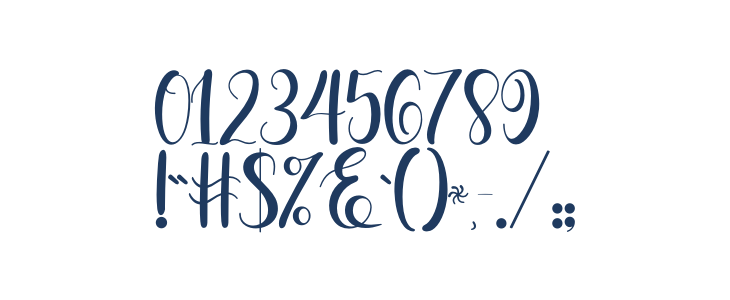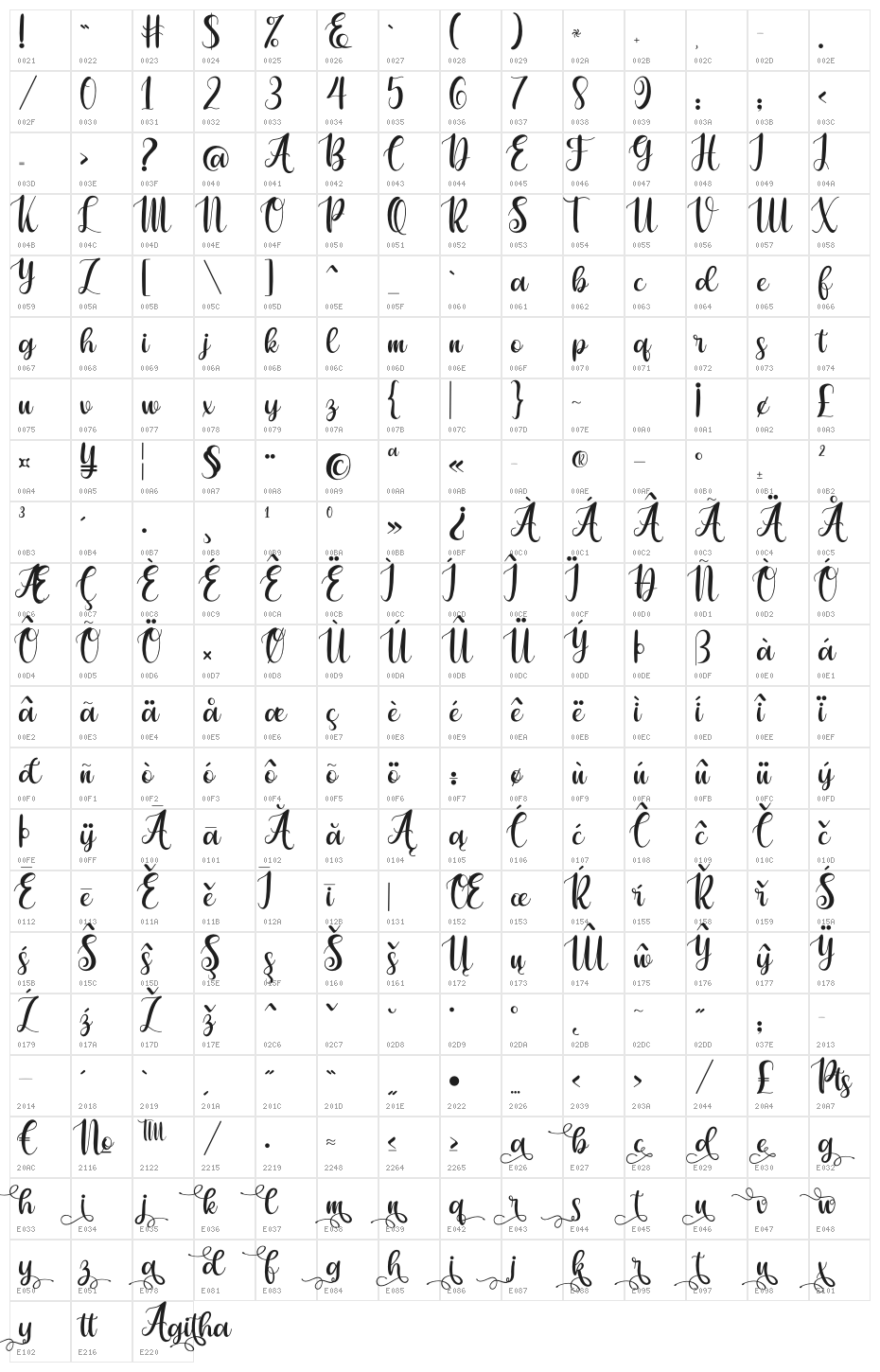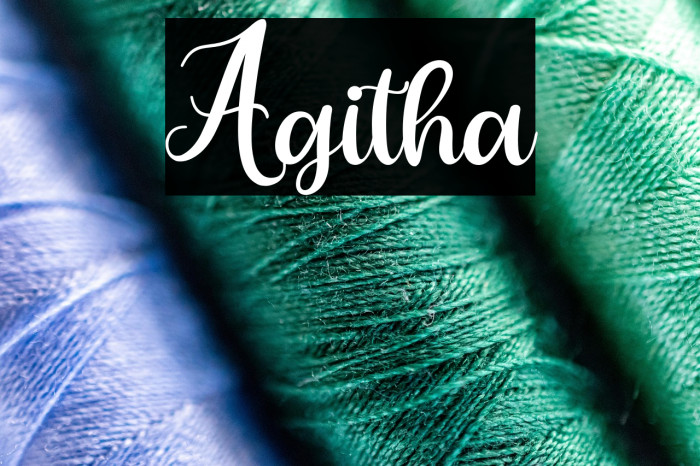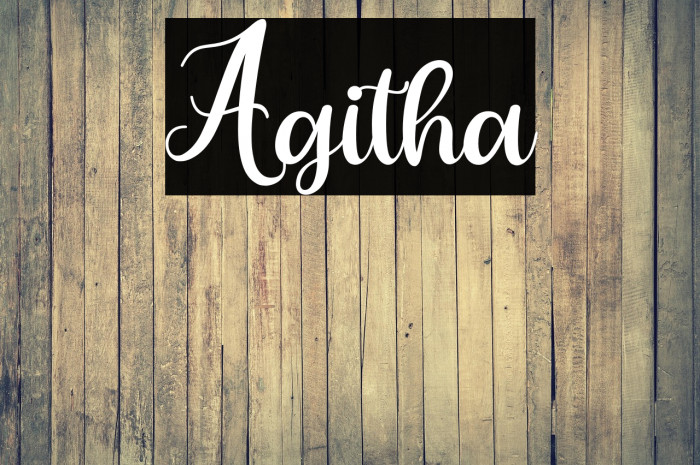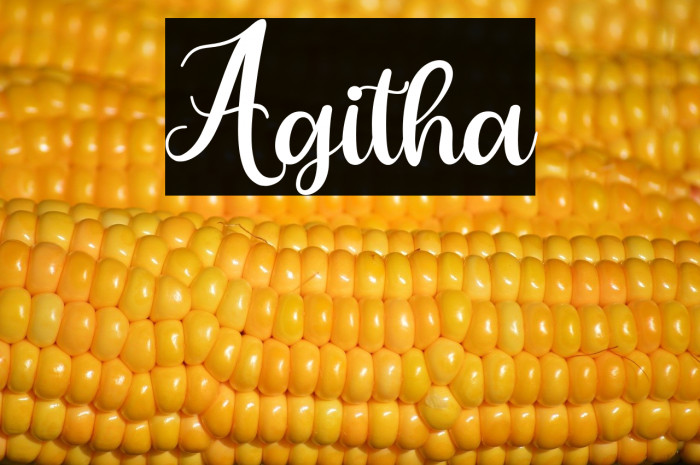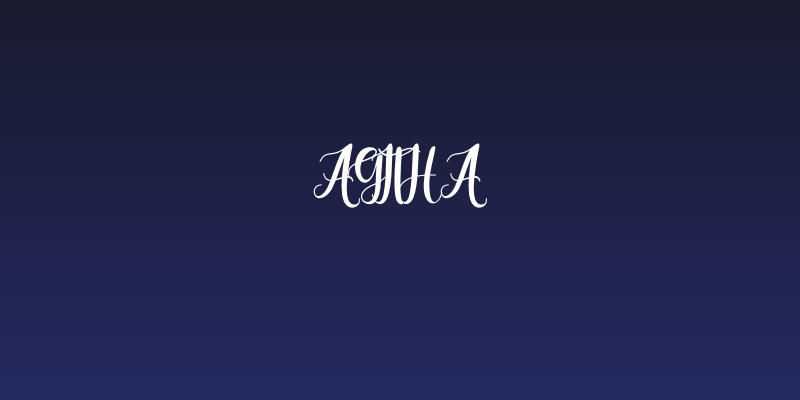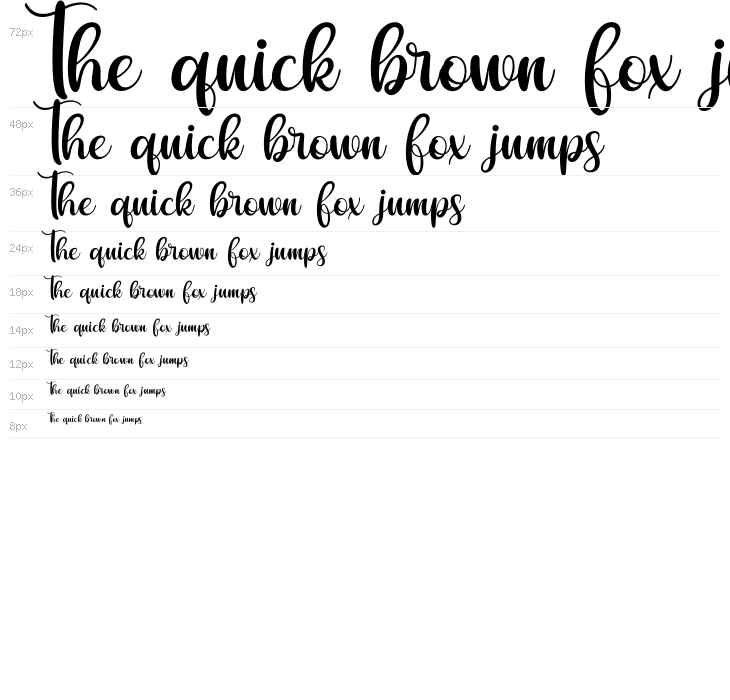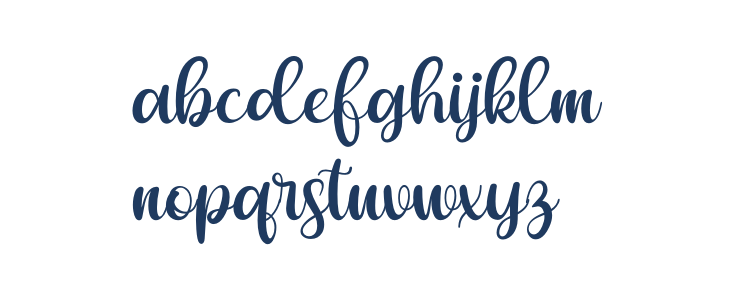
Agitha Font
Agitha Description
This font features an elegant and flowing script style, characterized by its smooth, cursive lines and graceful curves. The uppercase letters are bold and expressive, with intricate loops and swashes that add a touch of sophistication. The lowercase letters maintain a consistent flow, complementing the uppercase with their rounded forms and delicate connections. The numerals are stylishly crafted, maintaining the font's overall fluidity. Special characters are designed with the same attention to detail, ensuring a cohesive look across all glyphs. This font exudes a sense of elegance and charm, making it ideal for projects that require a touch of class and refinement.
| Overall Style | Elegant, Decorative |
| Use Case | Logos, Invitations, Decorative text |
| Proposed Projects | Ideal for wedding invitations, elegant branding, greeting cards, and upscale packaging. |